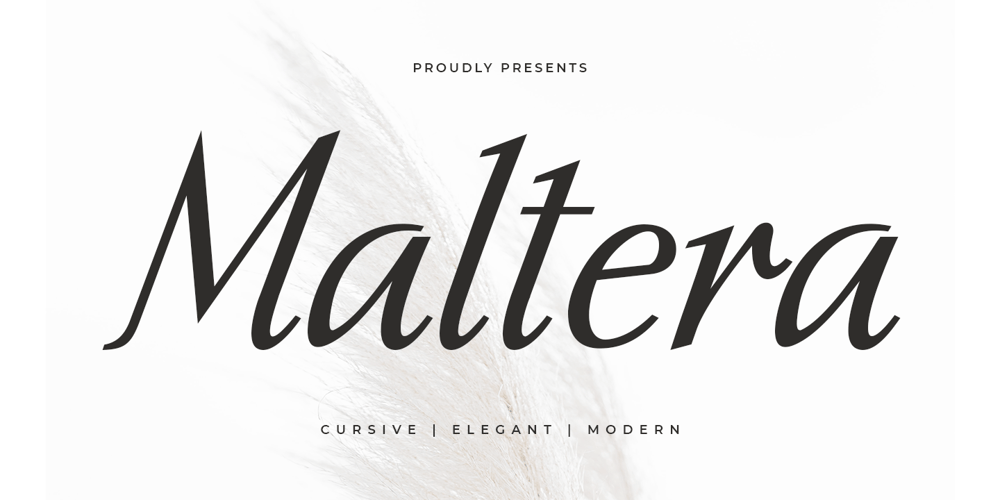
Maltera Font Family was designed by Novitasari Romli and published by Novitype. Maltera contains 1 styles and family package options. Introducing Maltera, a modern and elegant serif font designed with unique letterforms that offer an air of sophistication. This versatile typeface is perfect for fashion, invitations, weddings, quotes, and branding projects alike.With its classic yet contemporary look it can bring your designs to life in an eye-catching way. Try out Maltera today for all your typographic needs!Fonts featured : Uppercase Lowercase Numbers Symbols & punctuation Multilingual support Standard ligatures